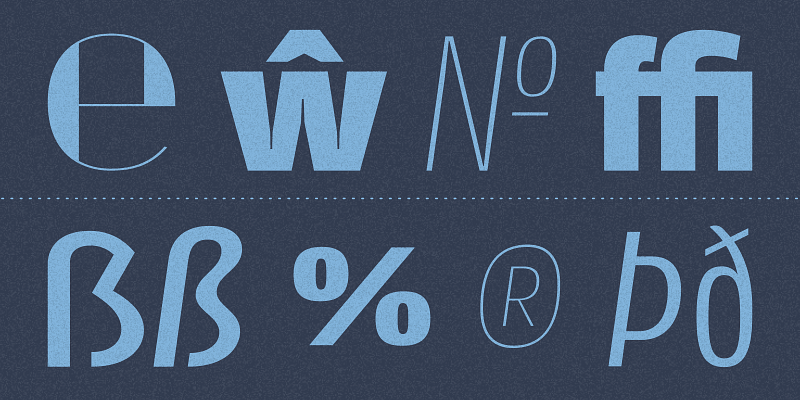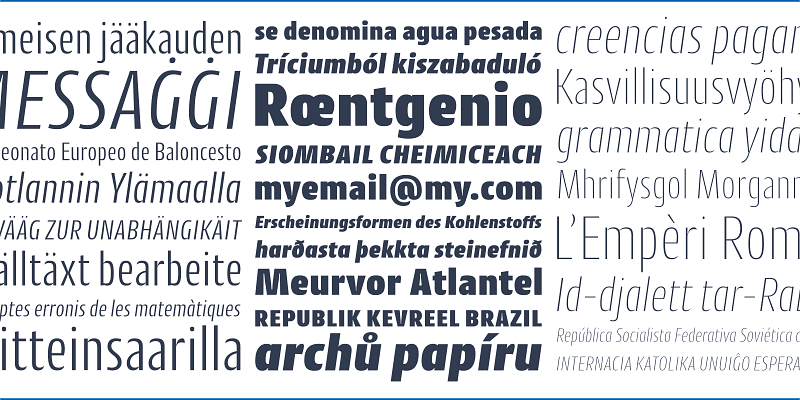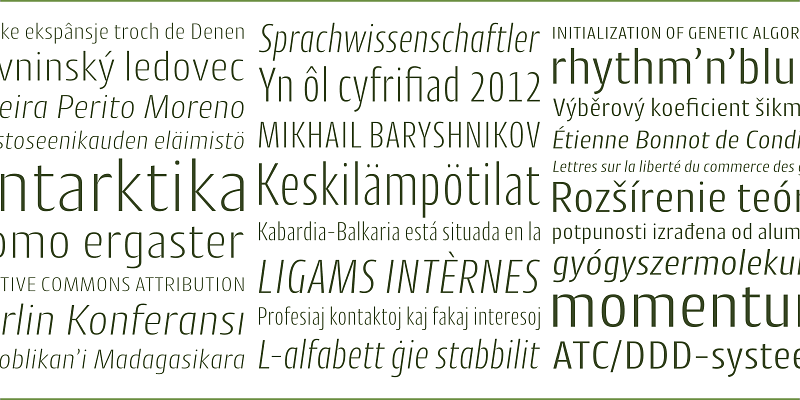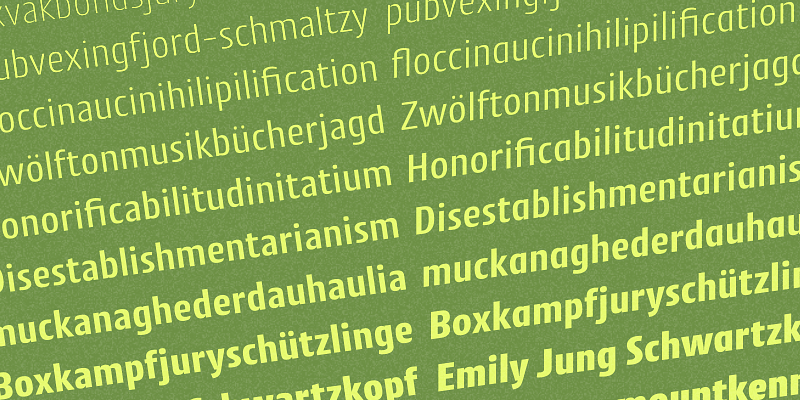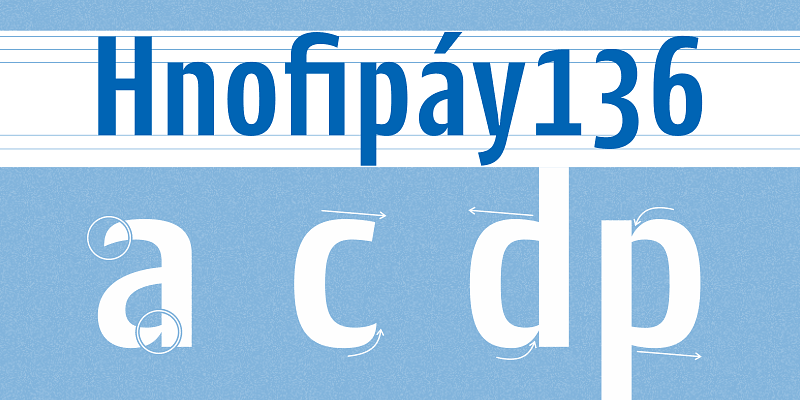
Cantiga is a workhorse sans, with 18 styles for both the regular and condensed versions. The thinnest and heaviest weights are made for titles, while the mid-range weights work nicely as text faces.